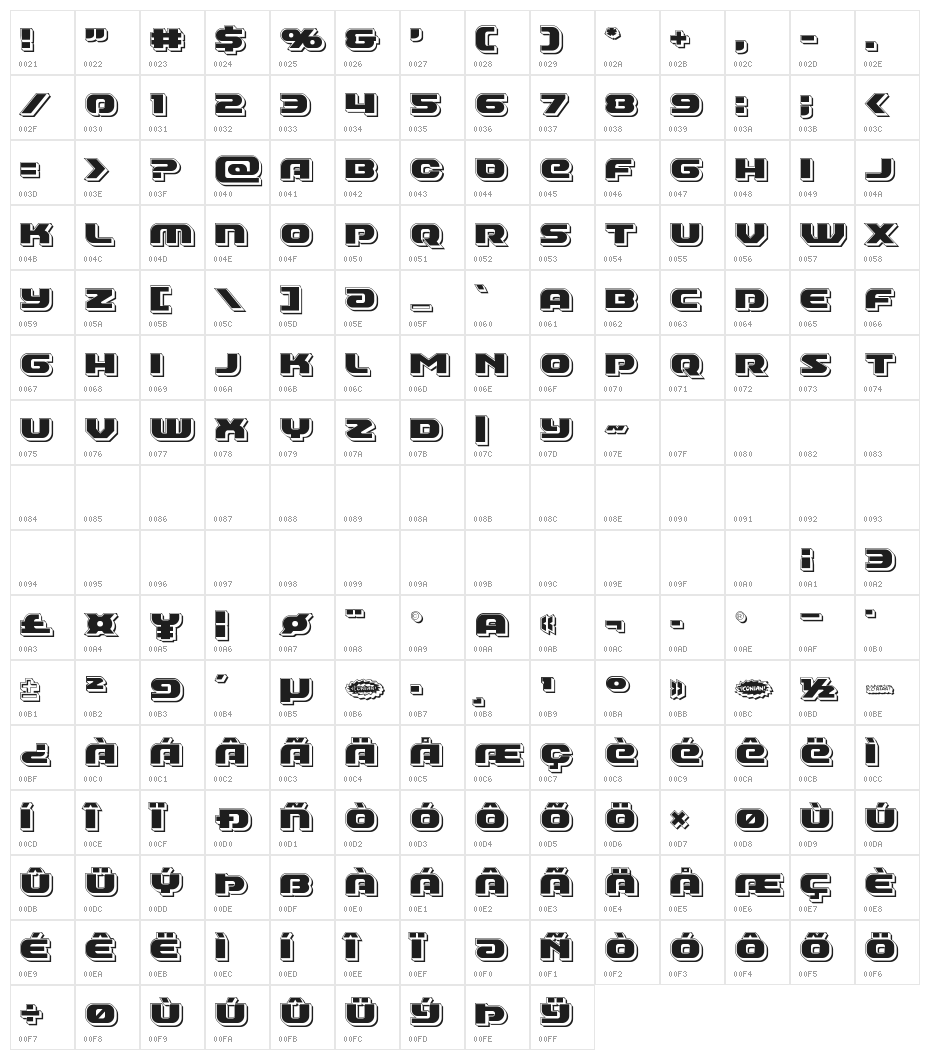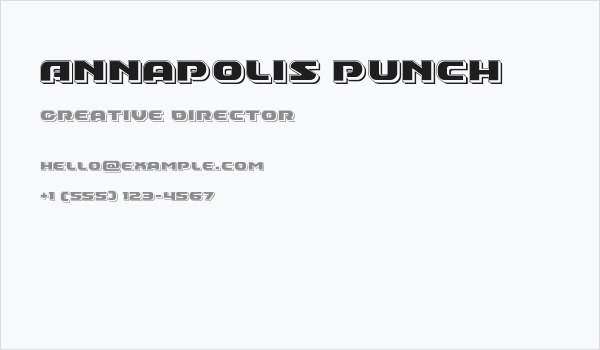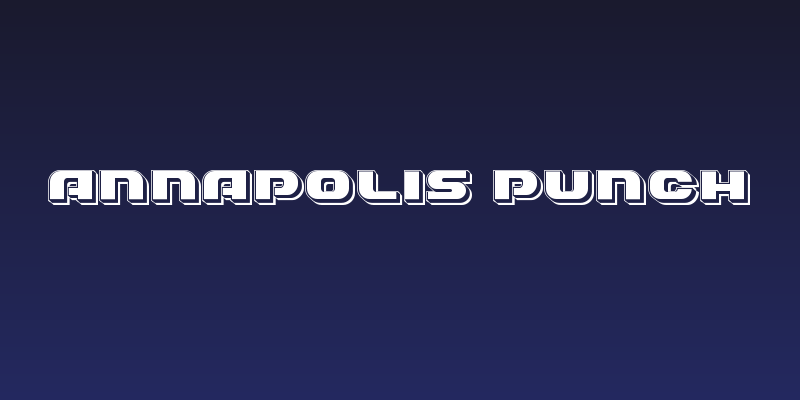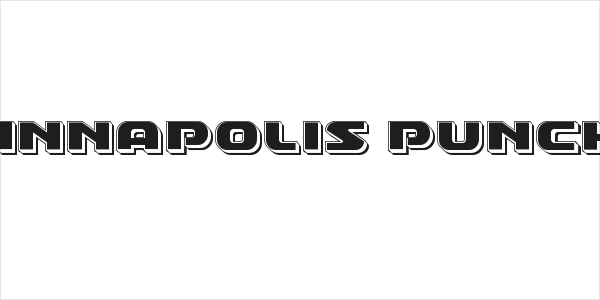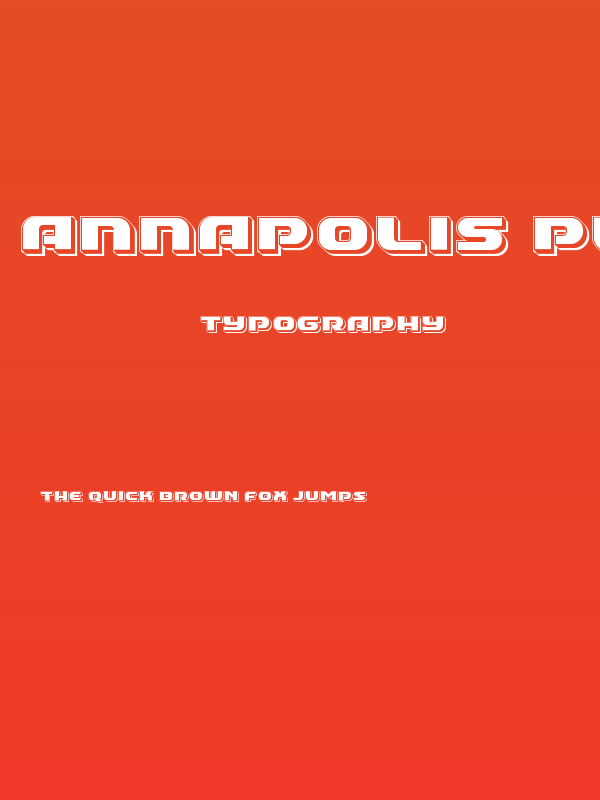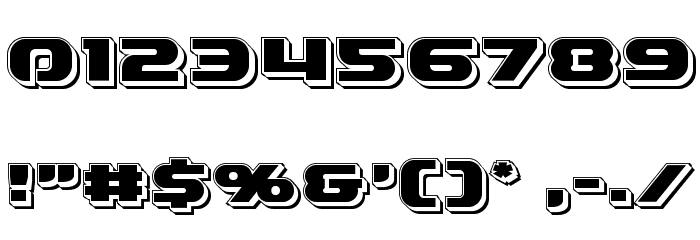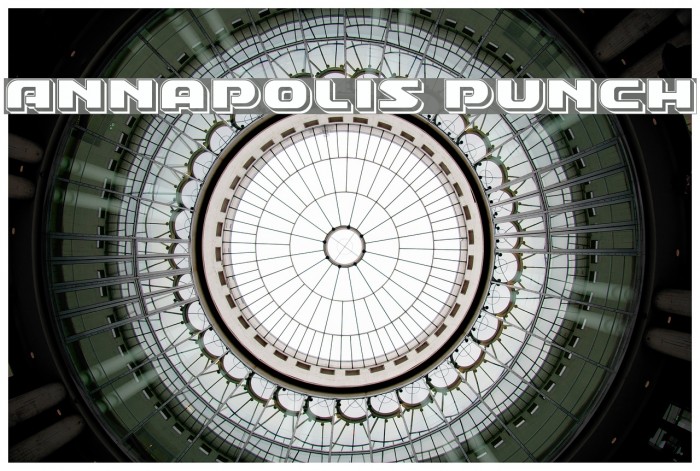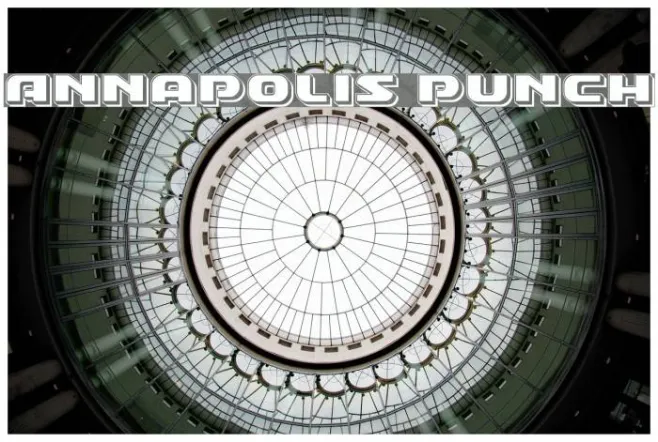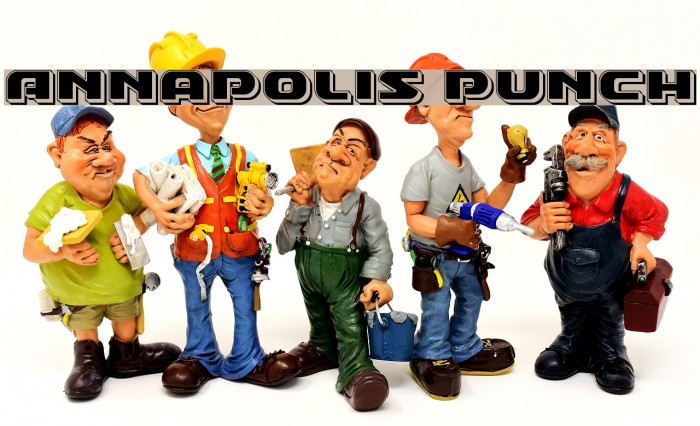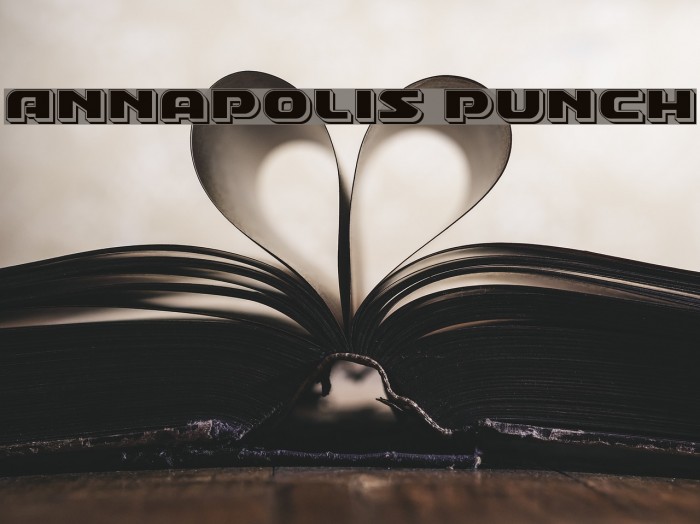
Annapolis Punch Font
Annapolis Punch Description
This font features a bold, geometric style with a strong presence. Each character is outlined with a thick border, creating a three-dimensional effect that adds depth and visual interest. The letters are uppercase and lowercase, with numerals and a variety of special characters included. The design is consistent across all characters, with a uniform width and height that ensures readability. The font's distinct style makes it suitable for attention-grabbing headlines and logos, where a modern and impactful look is desired.
| Proposed Projects | Ideal for branding, posters, and advertising where a modern and bold statement is needed. |